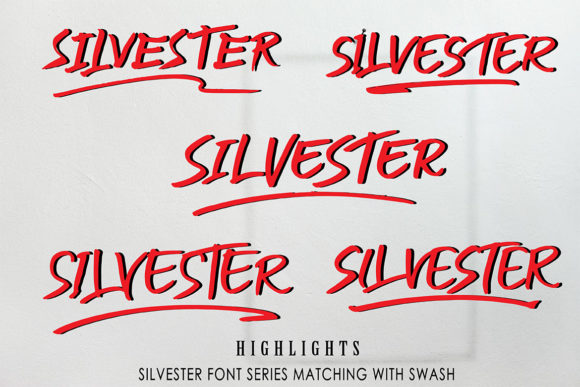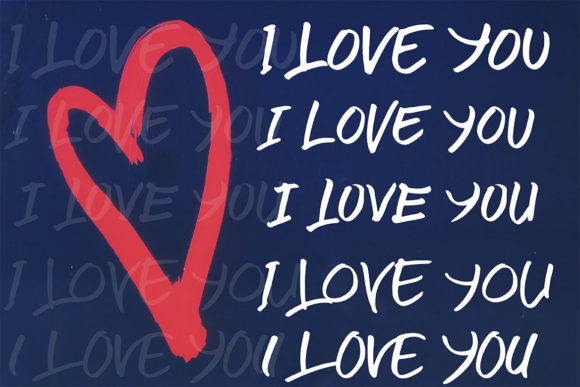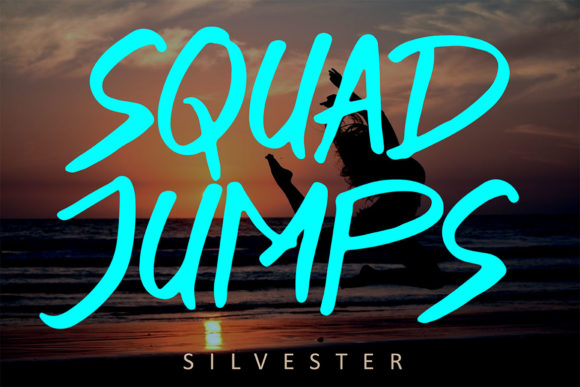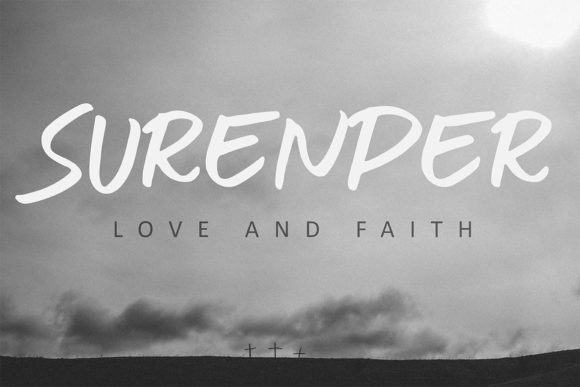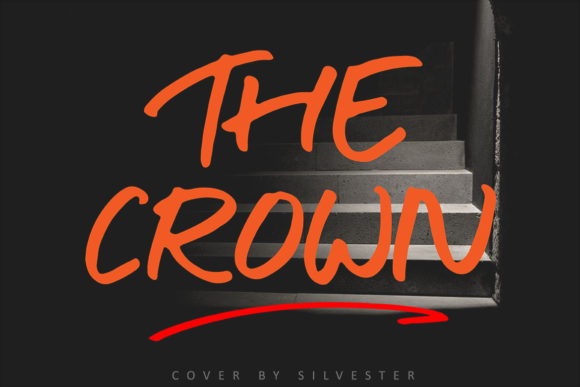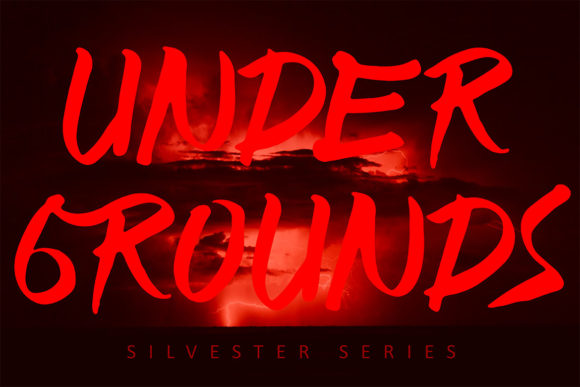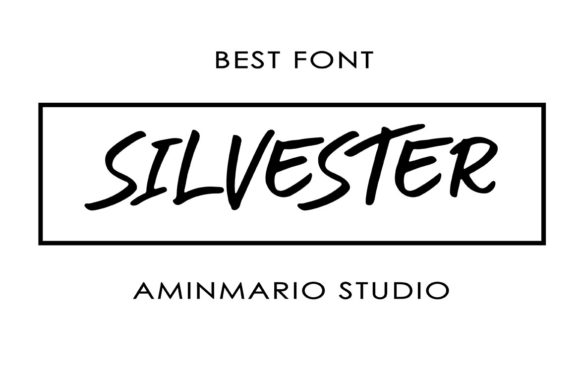
Silvester Font
About Silvester Font
Silvester is a powerful and raw handwritten font with a lovely feel. Get inspired by its unique charm, and turn any design project into a true standout!